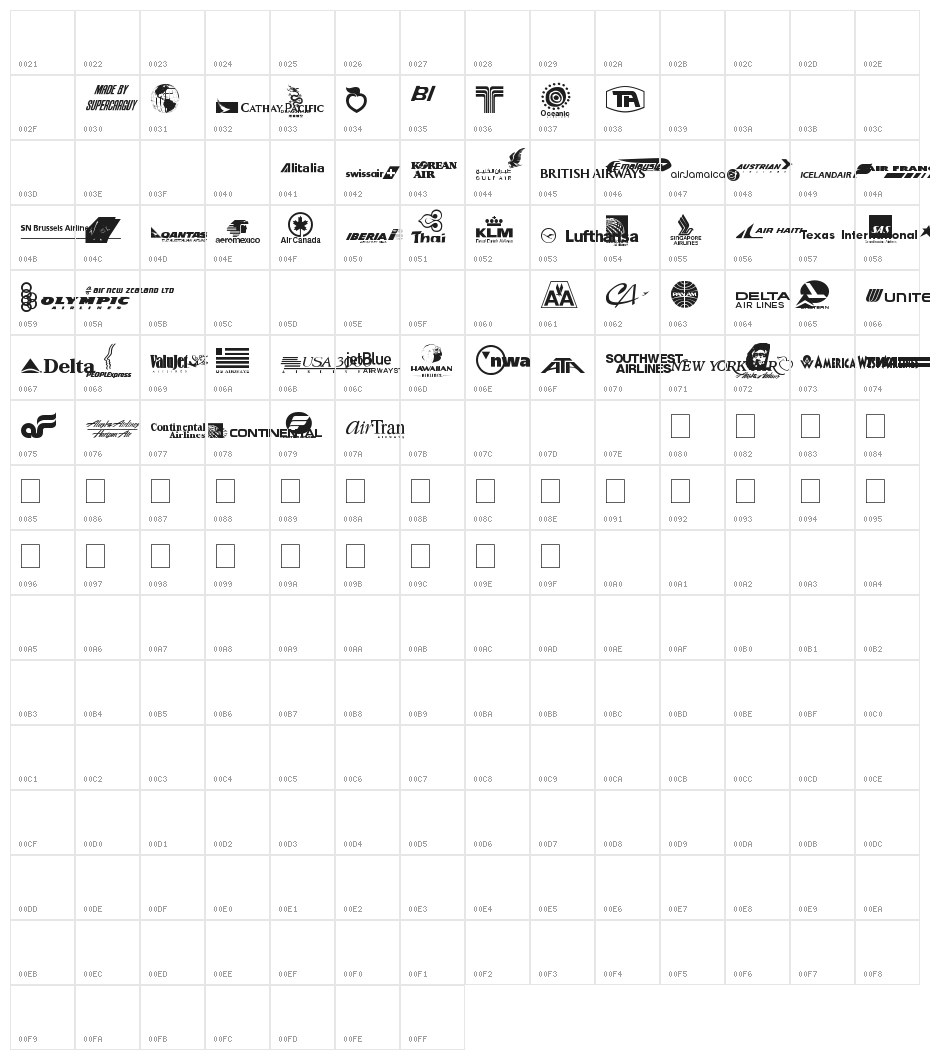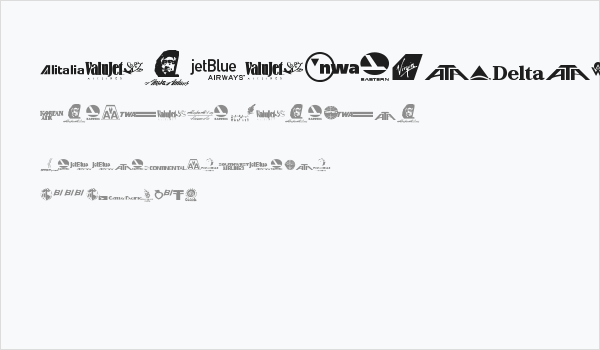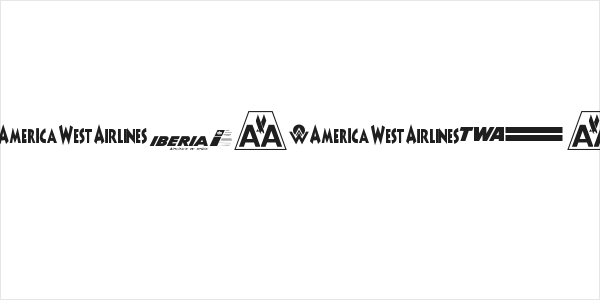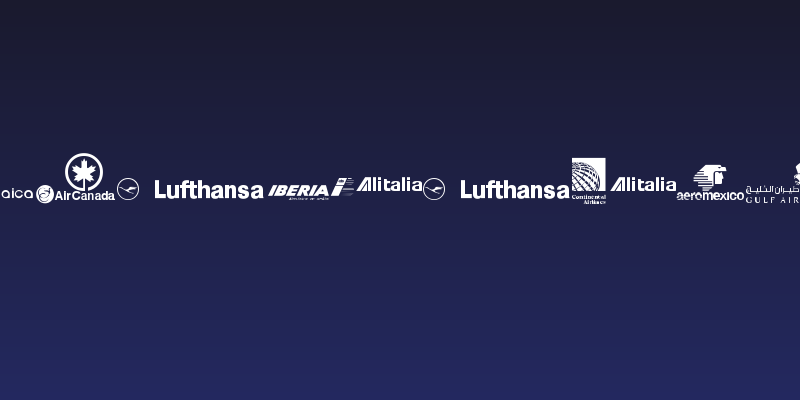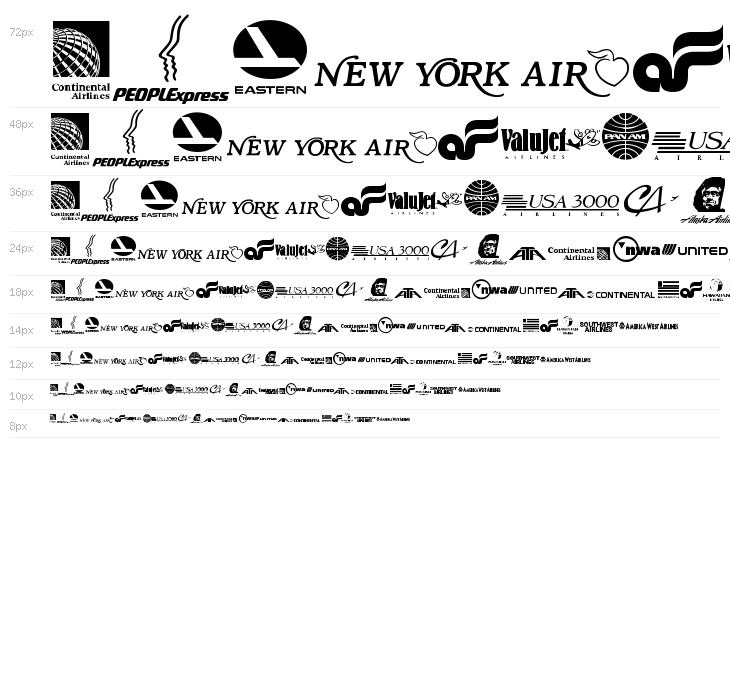
Airline Logos Past and Present Font
Airline Logos Past and Present Description
A diverse collection of airline logo fonts, featuring a mix of geometric sans-serifs, bold and condensed styles, and decorative elements. Many logos incorporate custom letterforms, unique ligatures, and aviation-inspired motifs, with some using all-caps for impact and others blending script or handwritten touches. The fonts range from modern and minimalist to vintage and decorative, reflecting the branding eras of various airlines.
| Overall Style | Modern, Vintage, Decorative |
| Use Case | Logos, Branding, Posters |
| Proposed Projects | Branding, logo design, travel posters, airline memorabilia, transportation signage. |